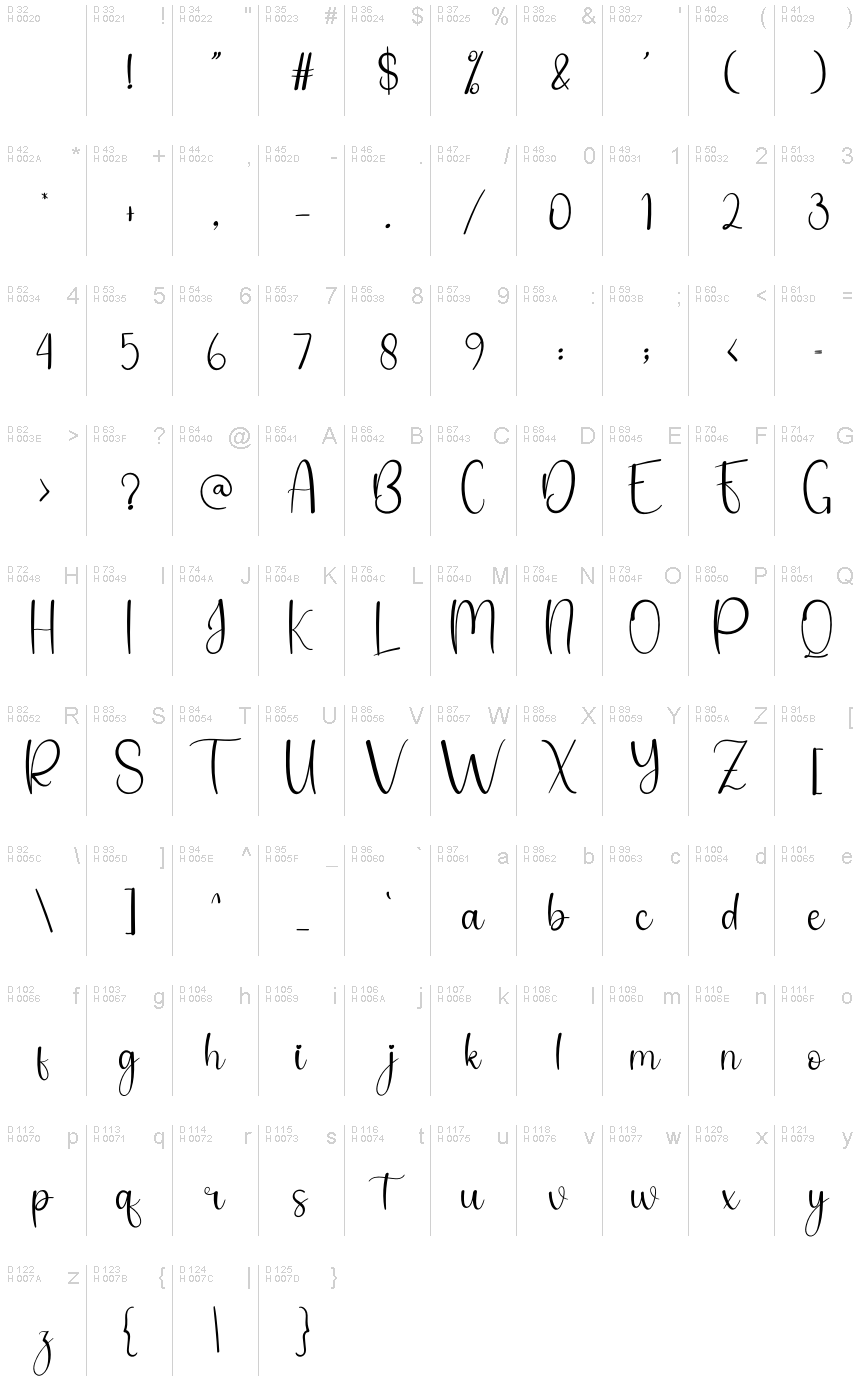
Realistic
Realistic, a font crafted by Scratchones, embodies the charm of authentic handwriting with its light and delicate strokes. Its flowing lines and subtle variations in pressure capture the essence of a personal touch, making each character seem as if it were penned directly onto the page. The aesthetic appeal of Realistic lies in its ability to blend casual elegance with functional legibility, creating an inviting atmosphere for readers.
With its handwritten style, this font is ideally suited for projects that require a touch of intimacy or informality without sacrificing sophistication. Whether it's for invitations, branding materials, or expressive editorial content, Realistic offers designers a versatile tool that can evoke emotion and warmth. Its light weight ensures that it remains unobtrusive yet distinctive—a perfect balance for creative compositions that require a human-centric approach.